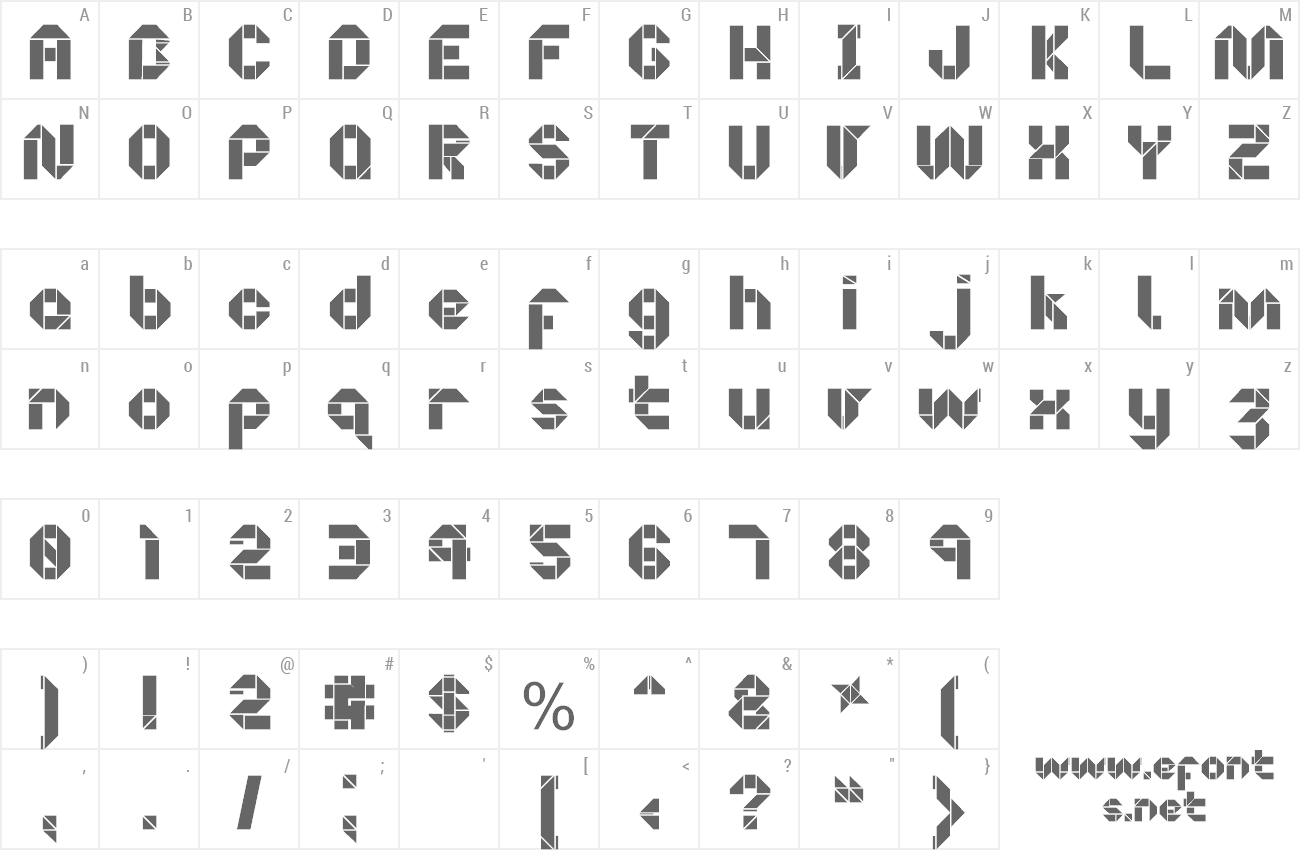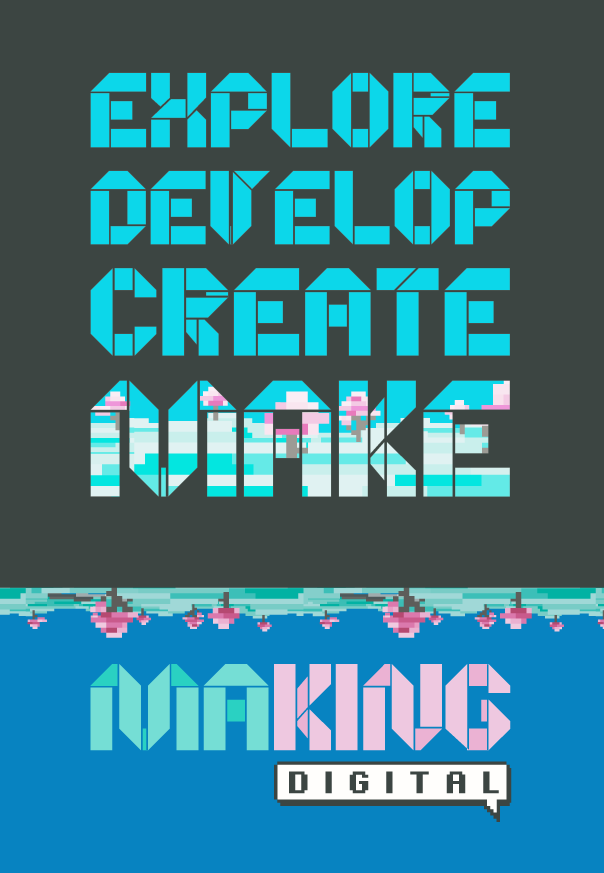
Preview and download Origami Making Font. Created by makingDigital in Techno Various styles with Free for personal use license.
First font I've made, sharing for personal and commercial use. The condition is that you send me a sample for use on my website as I'm interested in how the font is being used in designer work. Origami font is based on folded strips of paper, and is probably best used as a header font. View my other digital work at www.making.id.au |